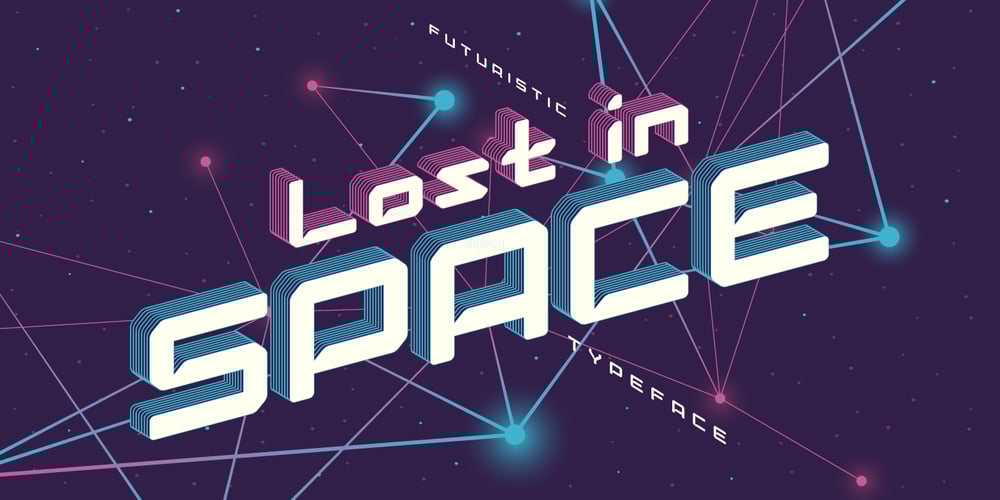
Lost in space
Lost in space font
Lost in space Font Family was designed by Gleb Guralnyk and published by Gleb Guralnyk. Lost in space contains 1 styles and family package options. This futuristic typeface “Lost in space” is a geometric vintage font with multi-lingual support.